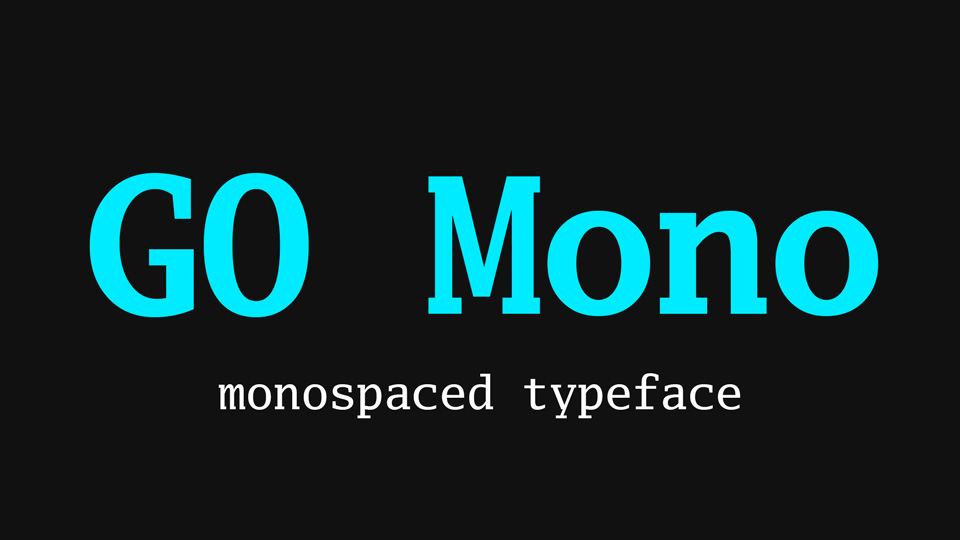
Download Go Mono typeface, a monospaced font family in Normal and Bold weights with matched Italics. Go Mono fonts have slab-shaped serifs, giving them a sturdy appearance.
Designer: Bigelow & Holmes